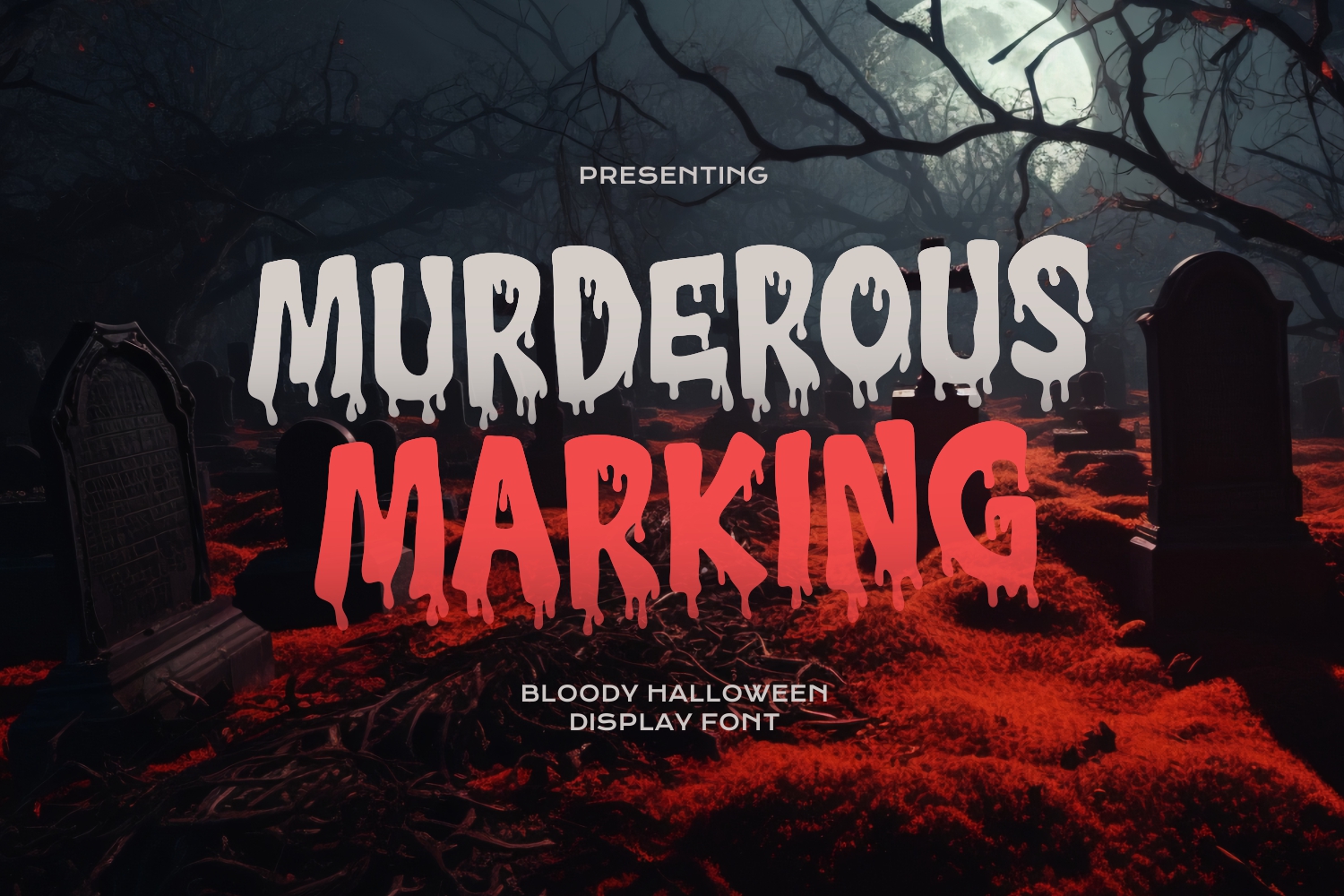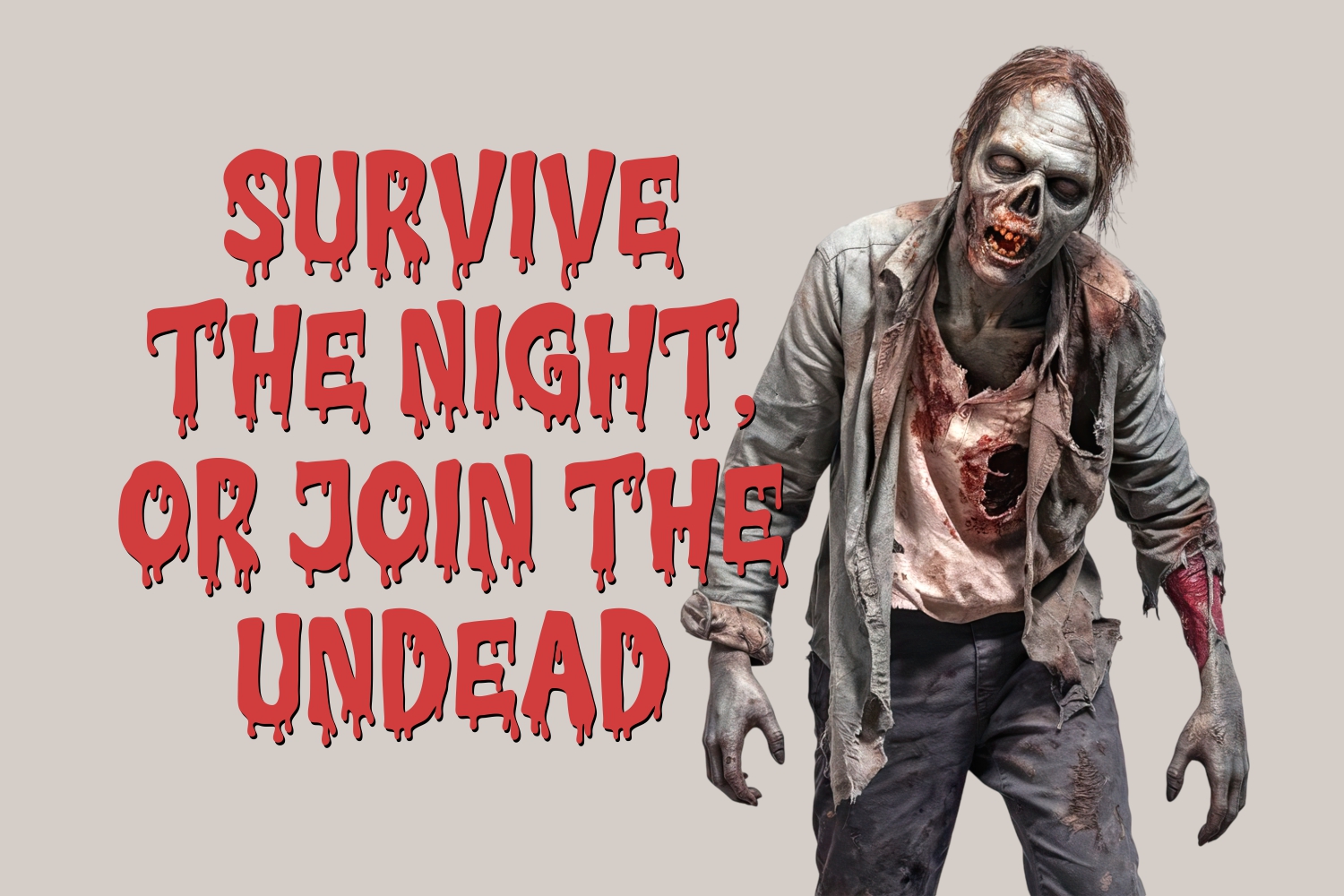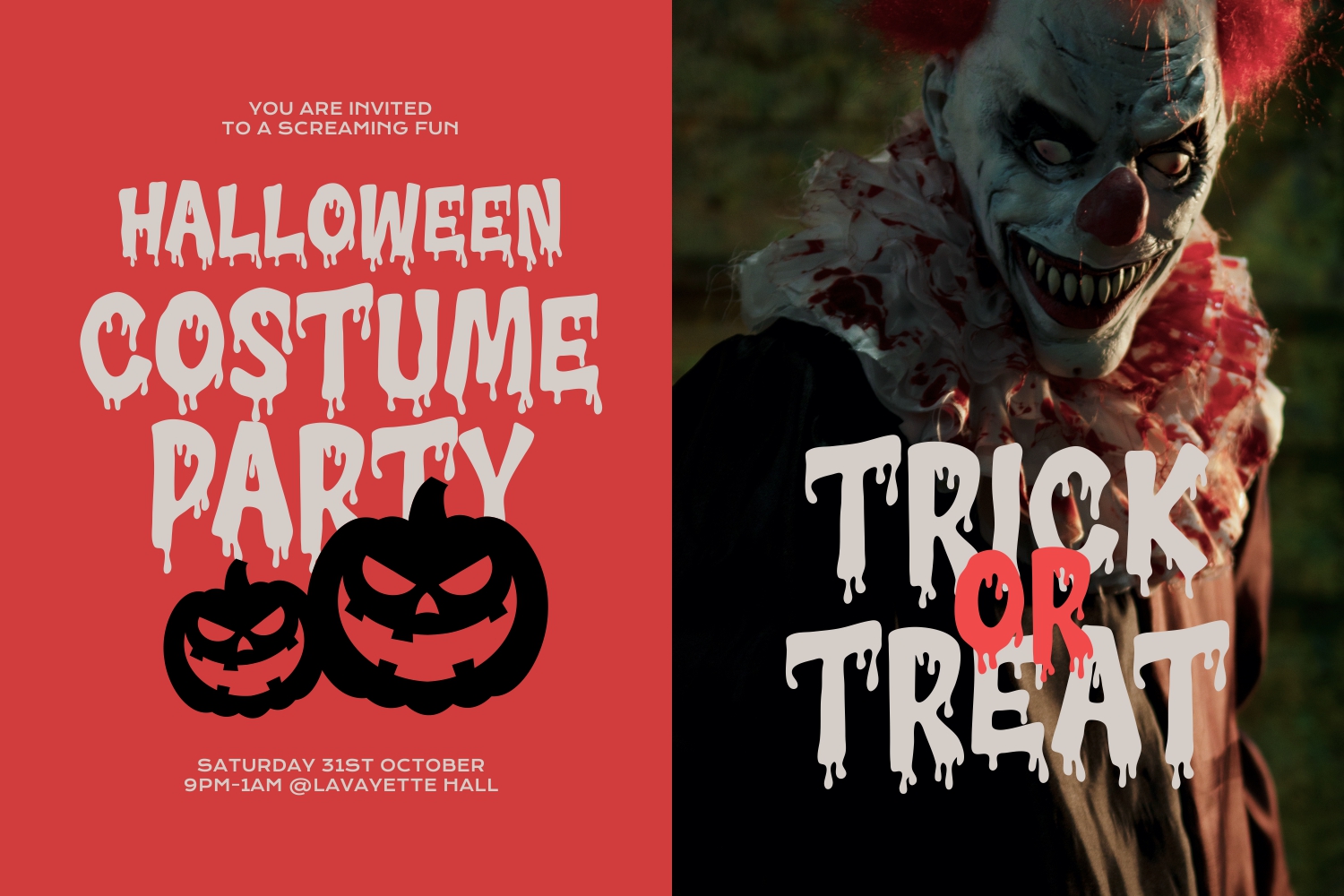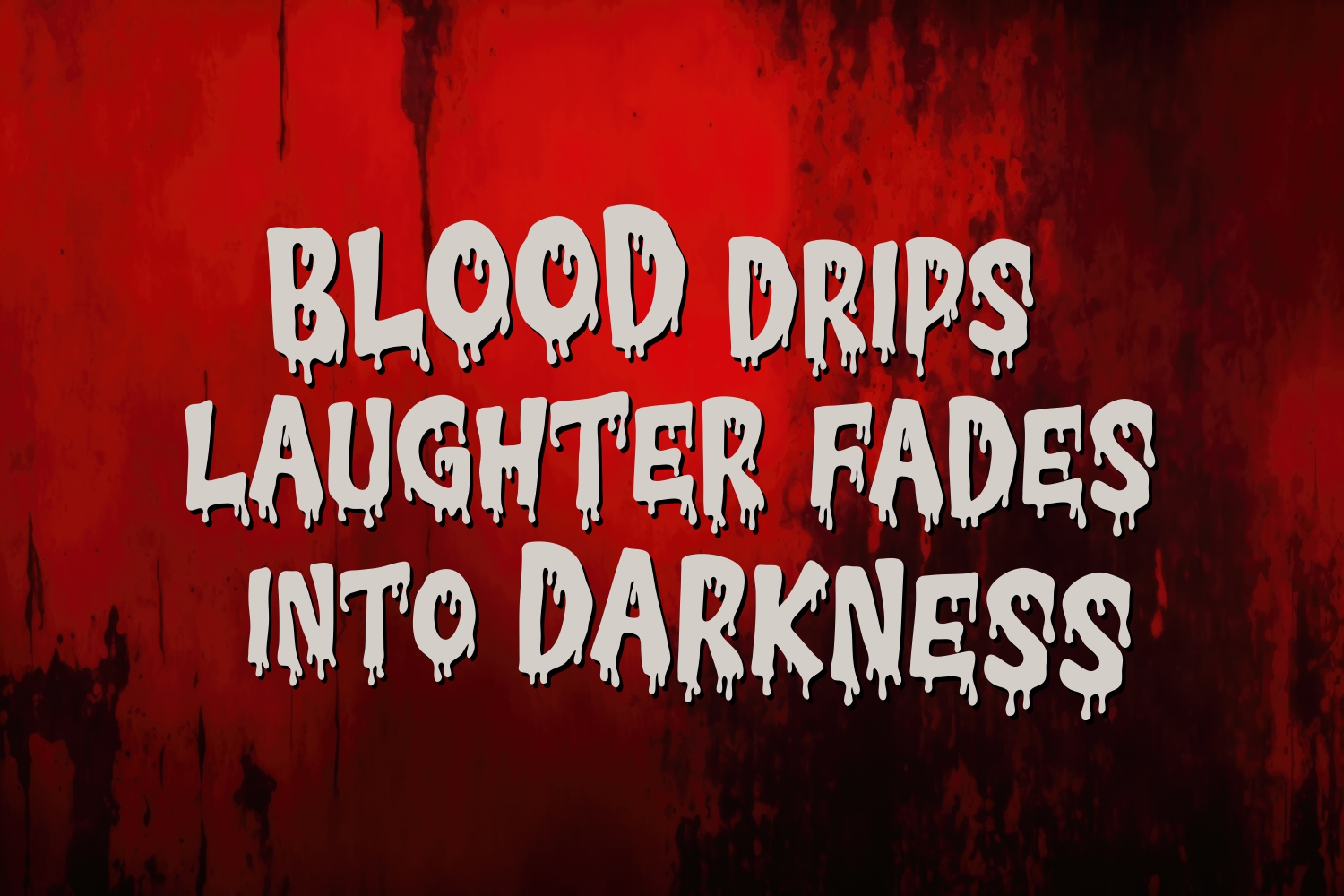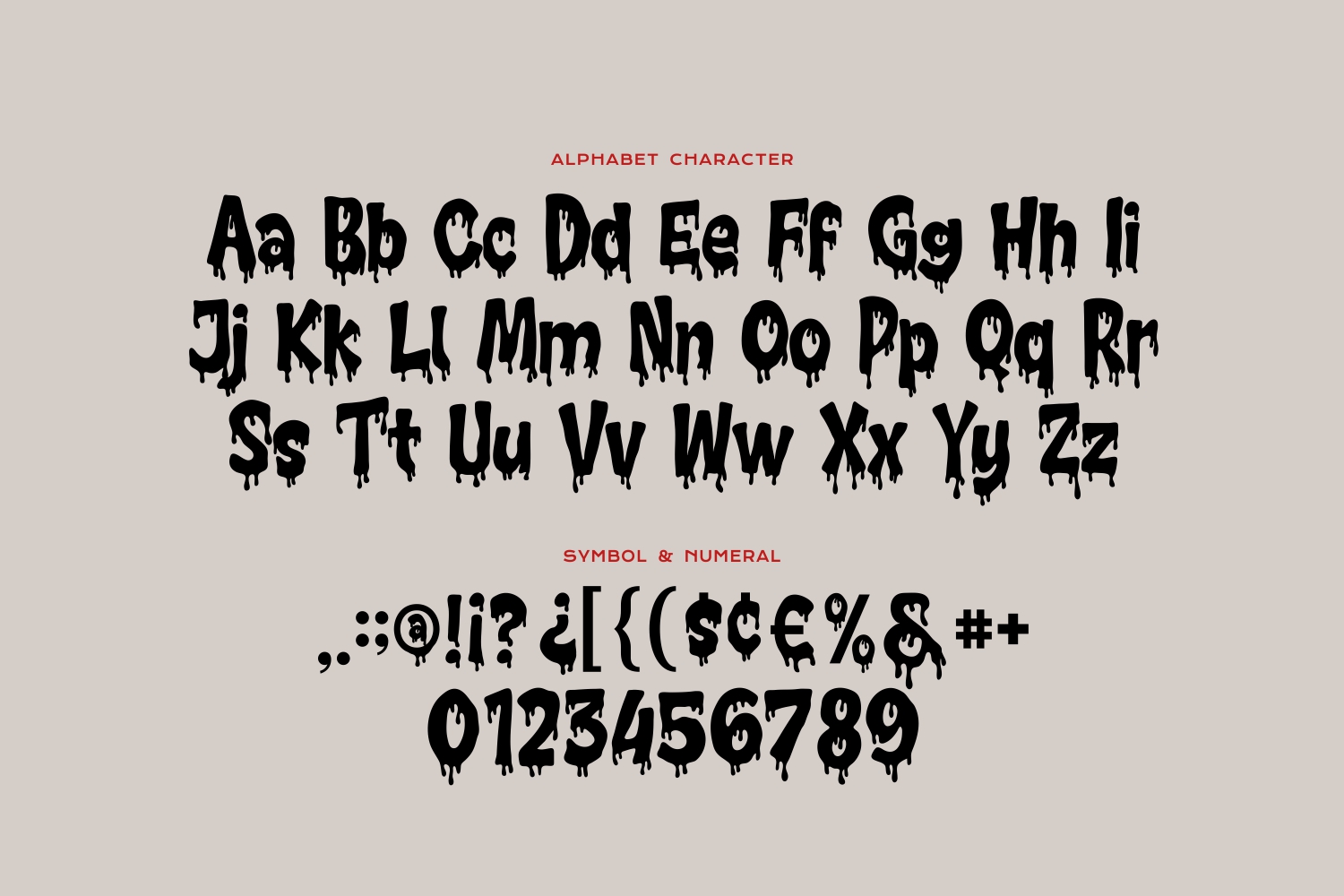
Murderous Marking is a bloody and terrifying Halloween display font designed to bring your scariest nightmares to life. Its dripping, jagged letterforms mimic fresh blood oozing from each stroke, making it perfect for horror movie posters, haunted house flyers, zombie-themed games, and spine-chilling party invitations. With a bold and menacing presence, this font instantly sets a dark and eerie mood for any design.
Complete with uppercase, lowercase, numbers, punctuation, and special symbols, Murderous Marking is highly versatile for both digital and print projects. Whether paired with gruesome visuals or standing alone in stark contrast, its unsettling shapes and gory style will ensure your message leaves a lasting, and haunting impression.